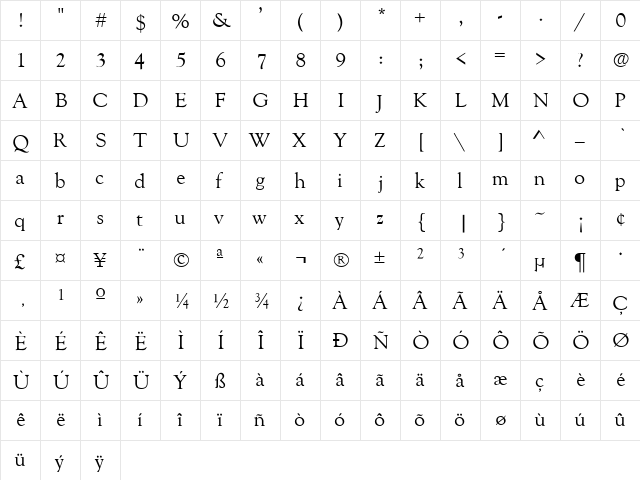
GoldenOldStyle Regular
GoldenOldStyle carries the refined structure of traditional serif typography, with bracketed terminals and considered proportions that communicate credibility and craft.
Pro Tip: Set GoldenOldStyle with slightly loose tracking in headlines to let each letterform's detail read clearly at display sizes.